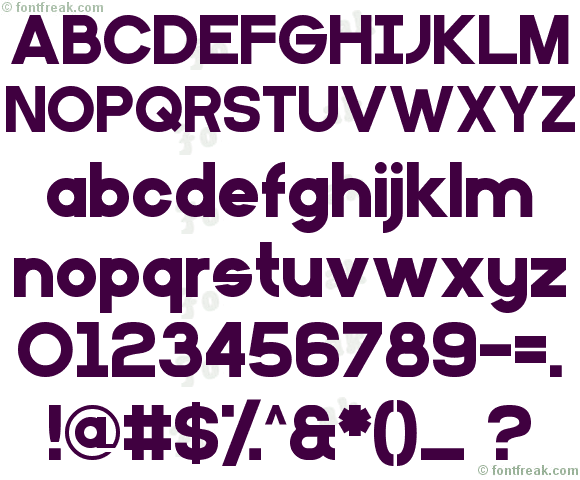
PrimarySchool
The PrimarySchool font by Andrew McCluskey is a distinctive sans-serif typeface designed with a playful yet professional aesthetic. Released in 2014 as freeware, this font features a clean and rounded letterform that balances modernity with accessibility. Its moderate stroke weight and minimal contrast provide a friendly appearance, making it an ideal choice for various design projects. The spacing is well-considered, allowing for easy readability, which is particularly important for educational materials and children's content.
PrimarySchool is well-suited for a range of applications. Graphic designers can utilize it in creating engaging educational resources, such as worksheets and posters that appeal to young learners. Small business owners in the children's sector can incorporate this font into branding materials, including logos and packaging, to establish a fun and approachable image. Content creators can also use PrimarySchool in social media graphics, educational videos, or branded merchandise targeting families and children. Additionally, it’s a perfect choice for invitations to children's events, such as birthday parties or school functions, where a lighthearted tone is essential.
The target audience for the PrimarySchool font includes graphic designers, educators, small business owners, and content creators looking for a font that communicates friendliness and clarity. Its versatility makes it a valuable asset for anyone aiming to engage with a younger demographic or promote educational content.
What sets the PrimarySchool font apart is its unique blend of simplicity and charm, making it not only visually appealing but also highly functional. Its approachable style invites creativity, ensuring that designs stand out while remaining accessible and easy to read. For those interested, the PrimarySchool font free download provides an excellent opportunity to enhance various projects with a distinctive touch.